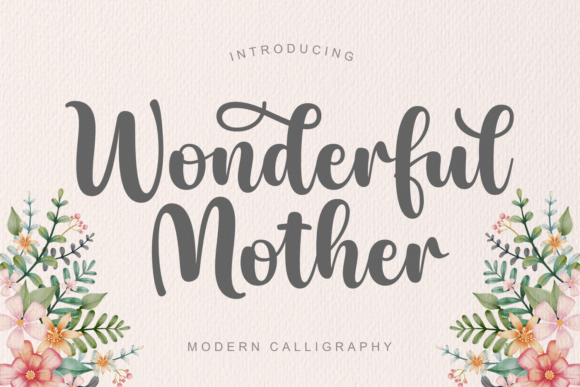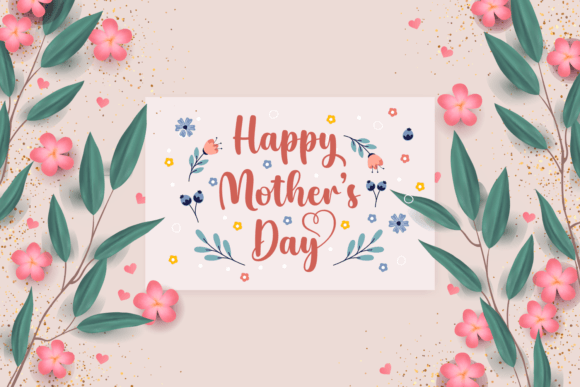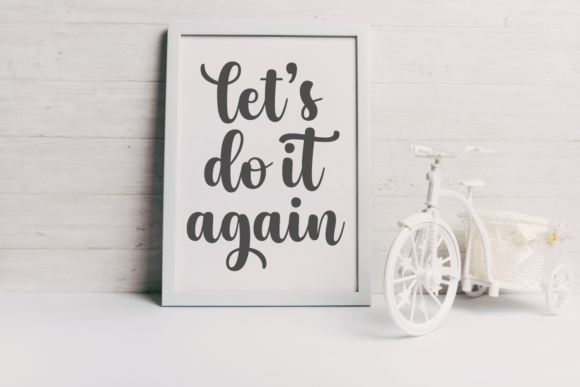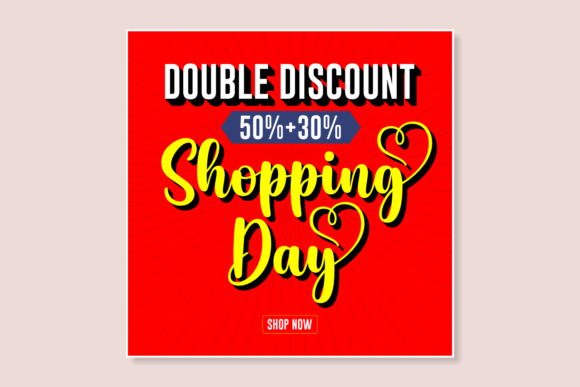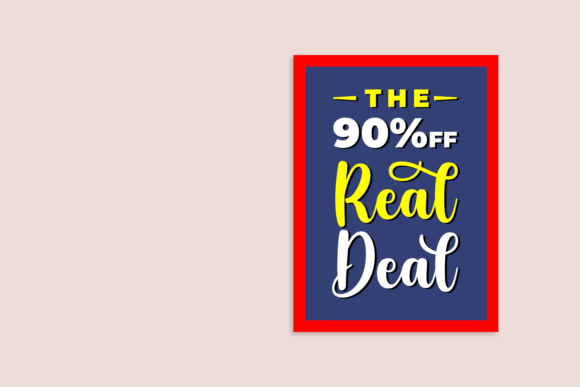
Wonderful Mother Font
About Wonderful Mother Font
Wonderful Mother is not just a font; it’s a stylish and flexible script typeface that effortlessly captivates with its lovely rhythm and enchanting characters. This versatile font is perfect for a broad spectrum of design projects, from greeting cards to t-shirt designs, offering a magnetic allure that is sure to captivate your audience.
The graceful flow of Wonderful Mother’s characters adds a touch of elegance to any project. Whether you’re crafting a heartfelt greeting card or designing a trendy t-shirt, this font has the aesthetic charm to complement your creative vision. Its flexibility shines through in various applications, making it a go-to choice for designers seeking a font that adapts seamlessly to diverse design contexts.
Imagine Wonderful Mother gracing a greeting card with its stylish script, conveying warmth and sophistication. On a t-shirt, it becomes a fashion statement, transforming words into wearable art. The font’s captivating rhythm ensures that it adds a unique and enchanting touch to every project it graces.
To enhance its versatility, Wonderful Mother is PUA encoded, offering easy access to a wide range of glyphs and swashes. This feature allows you to customize and personalize your designs, ensuring that each project is infused with your unique creative flair.
In conclusion, Wonderful Mother is a typeface that lives up to its name. It goes beyond being a font and becomes a design companion that lures you in with its stylish and flexible script. Whether you’re working on heartfelt cards or trendy apparel, Wonderful Mother is equipped with all the elements needed to bring your creative vision to life.